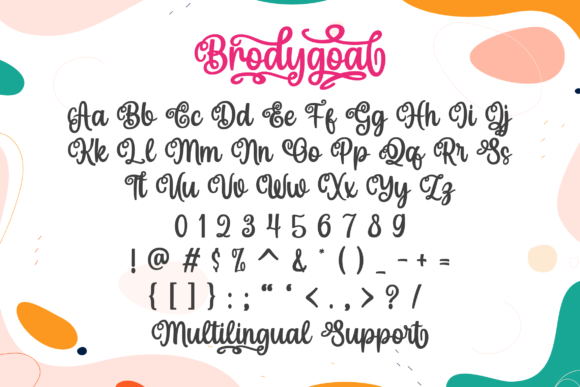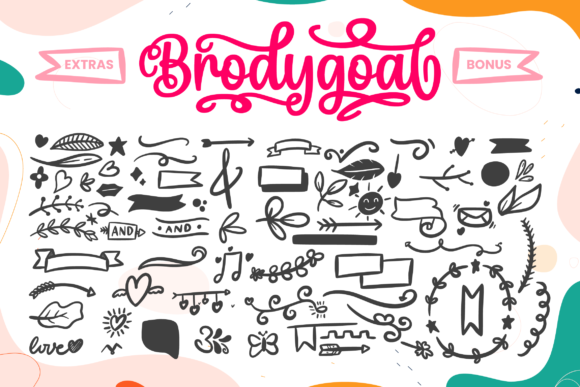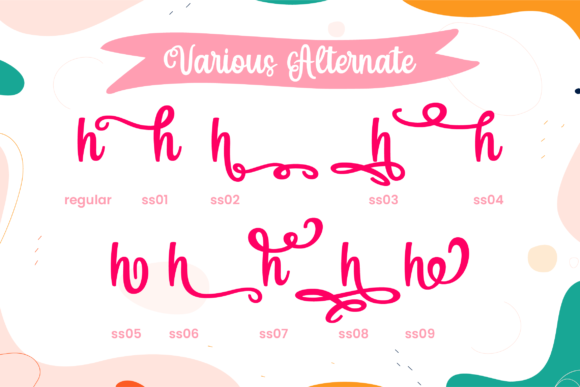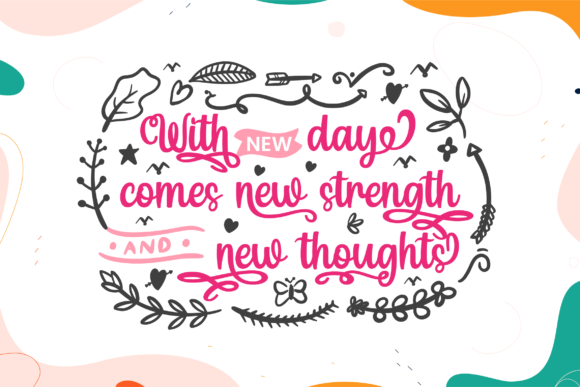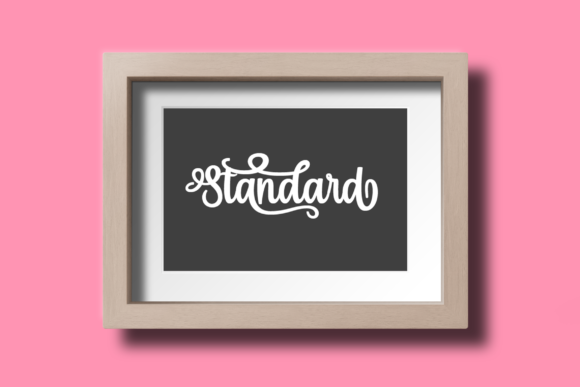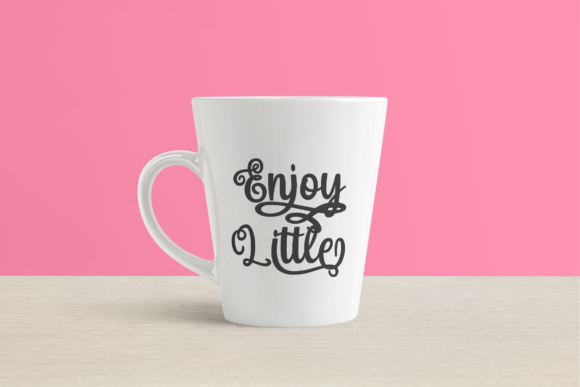
Introducing Brodygoal Font: The Epitome of Elegance and Versatility
In the realm of typography, few fonts manage to strike a balance between elegance, delicacy, and versatility. Brodygoal Font is one such exceptional typeface that has been making waves in the design community. This delicate, elegant, and flowing handwritten font has captured the hearts of designers and crafters alike, and for good reason. In this article, we’ll delve into the world of Brodygoal Font, exploring its unique features, benefits, and uses.
Aesthetics and Design
Brodygoal Font boasts beautiful, well-balanced characters that exude a sense of refinement and poise. Its flowing script design makes it perfect for a wide range of design projects, from wedding invitations and branding materials to packaging and digital media. The font’s elegant appearance is sure to elevate any design, adding a touch of sophistication and luxury.
One of the standout features of Brodygoal Font is its versatility. Its delicate and flowing design makes it an excellent choice for designs that require a touch of whimsy and romance. At the same time, its elegance and poise ensure that it remains suitable for more formal and professional projects.
PUA Encoding: Unlocking Endless Creative Possibilities
Brodygoal Font takes versatility to the next level with its PUA (Private Use Area) encoding. This means that designers can access all glyphs and swashes with ease, unlocking endless creative possibilities. With PUA encoding, you can effortlessly navigate the font’s extensive character set, including alternates, ligatures, and swashes, to create stunning and unique designs.
Brodygoal Font is an excellent addition to any designer’s or crafter’s toolkit. Its unique blend of elegance and versatility makes it perfect for a wide range of projects, including:
- Packaging design, including product labels and packaging
- Digital media, such as social media graphics and blog headers
- Handmade crafts, such as scrapbooking and card making
Whether you’re a seasoned designer or a crafter looking to add a personal touch to your projects, Brodygoal Font is an excellent choice. Its ease of use and versatility make it accessible to designers of all skill levels, while its stunning design ensures that your projects will stand out from the crowd.
Tips and Tricks for Using Brodygoal Font
To get the most out of Brodygoal Font, here are a few tips and tricks to keep in mind:
- Experiment with different font sizes and styles to create visual interest and hierarchy.
- Use the font’s swashes and glyphs to add a personal touch to your designs.
- Pair Brodygoal Font with complementary fonts to create a unique and harmonious design.
- Don’t be afraid to get creative and try out new and innovative design ideas.
In conclusion, Brodygoal Font is an exceptional typeface that offers a unique blend of elegance, delicacy, and versatility. Its PUA encoding and extensive character set make it perfect for designers and crafters looking to add a touch of sophistication and luxury to their projects. Whether you’re working on a wedding invitation, branding material, or handmade craft, Brodygoal Font is an excellent choice. So why wait? Discover the world of Brodygoal Font today and unlock a world of creative possibilities!